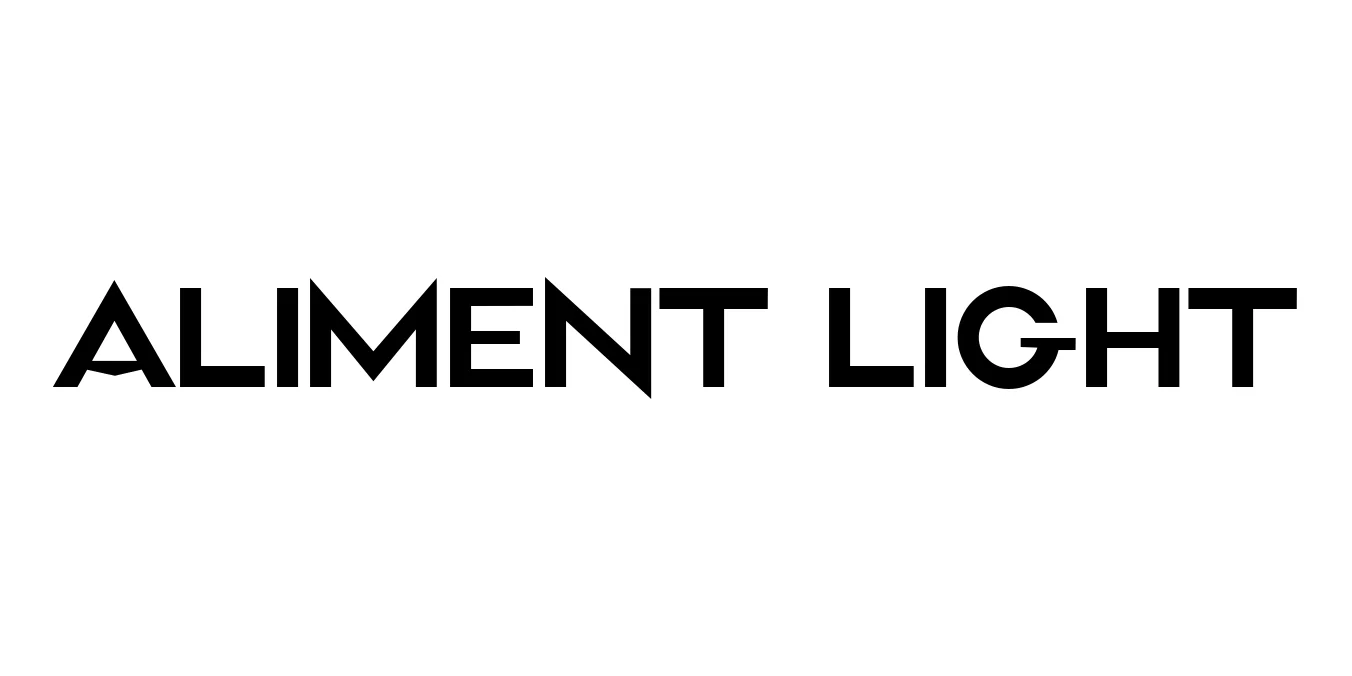
Aliment Light
Designed by Sergej Lebedev
Aliment Light is a contemporary geometric sans-serif typeface meticulously crafted by designer Sergej Lebedev. It embodies a refined approach to modernist typography, emphasizing clean lines, balanced proportions, and exceptional legibility across digital platforms. The Light weight of the Aliment family is particularly distinguished by its airy and elegant appearance, making it a premier choice for designers aiming to achieve a sophisticated, minimalist aesthetic in their visual communications.
The structural integrity of Aliment Light is rooted in mathematical precision, ensuring that each glyph maintains consistent visual rhythm even at larger display sizes. This typeface is highly versatile, bridging the gap between functional UI design and expressive editorial layouts. Whether used for high-end fashion branding or streamlined mobile interfaces, Aliment Light provides a crisp, professional look that enhances the overall user experience without overshadowing the content.
Aliment Light Best Uses
Ideal for sophisticated headlines and pull quotes in high-end digital and print magazines.
Perfect for creating minimalist logos and corporate identities for luxury and tech brands.
Excellent for clean navigation menus and high-legibility body text on modern websites.
Well-suited for mobile app interfaces that require a spacious and modern feel.